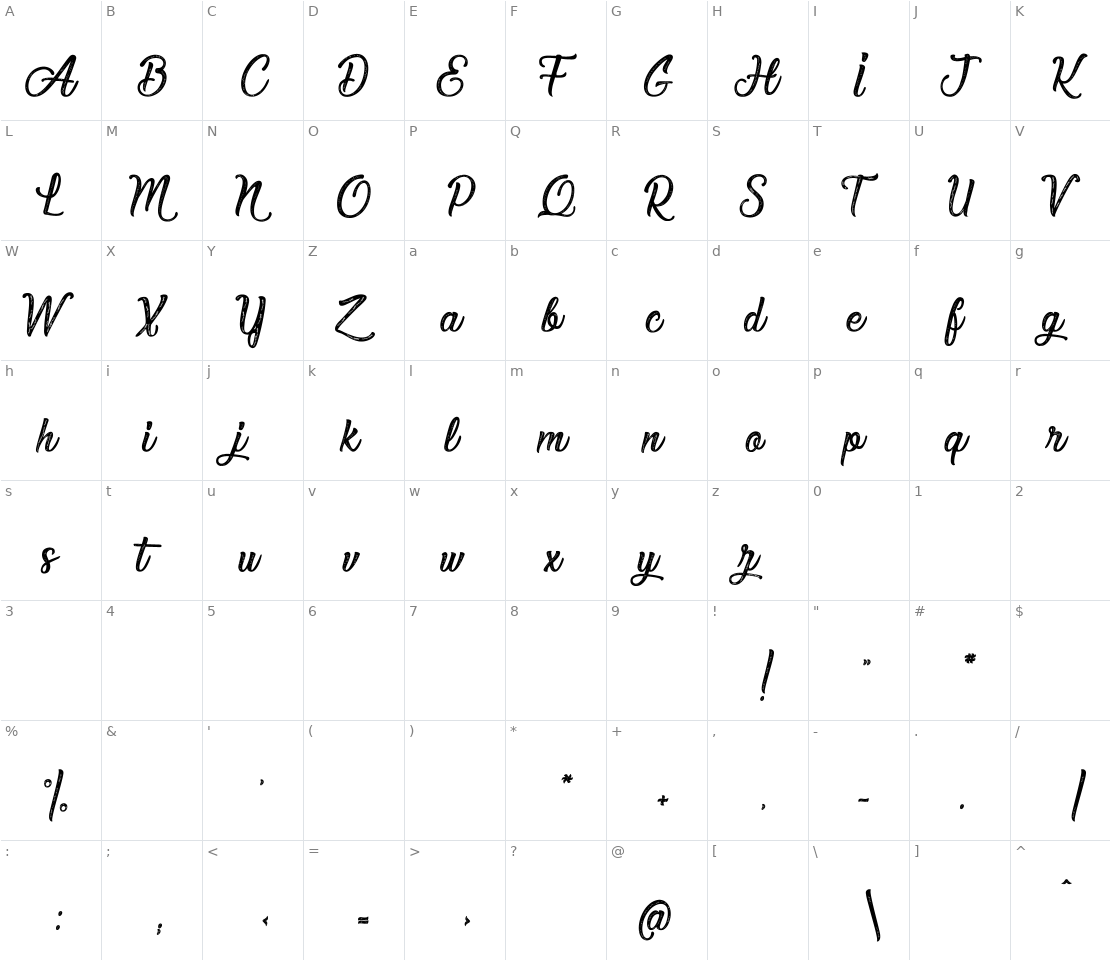
Elegant and Sensational
Elegant and Sensational is a bold connected script from Cat.B with flowing, brush-style strokes that balance casual energy with a refined hand. The letterforms move with real rhythm, thick and confident but never stiff, sitting comfortably on invitations, event branding, and editorial headlines. It has the kind of warmth that feels personal without losing its polish at larger sizes.